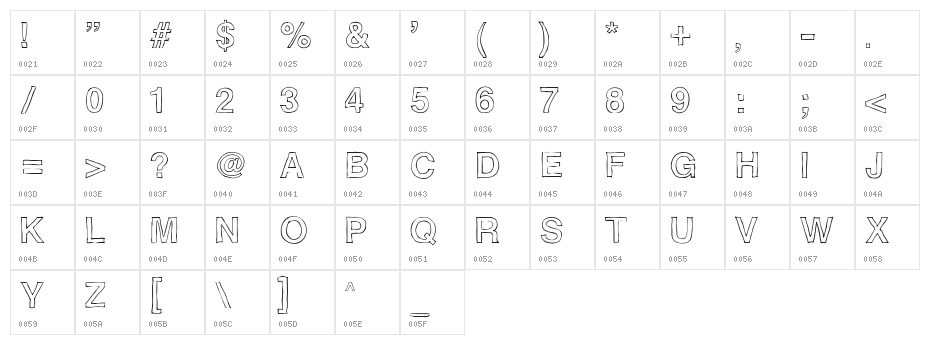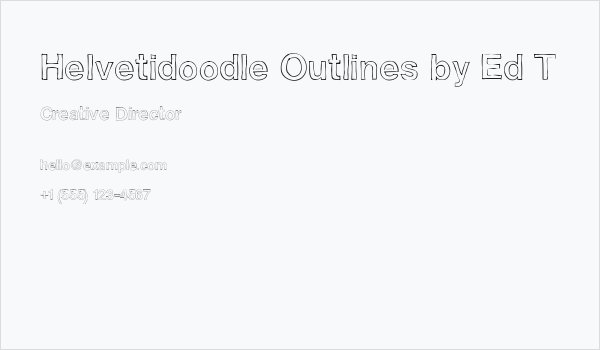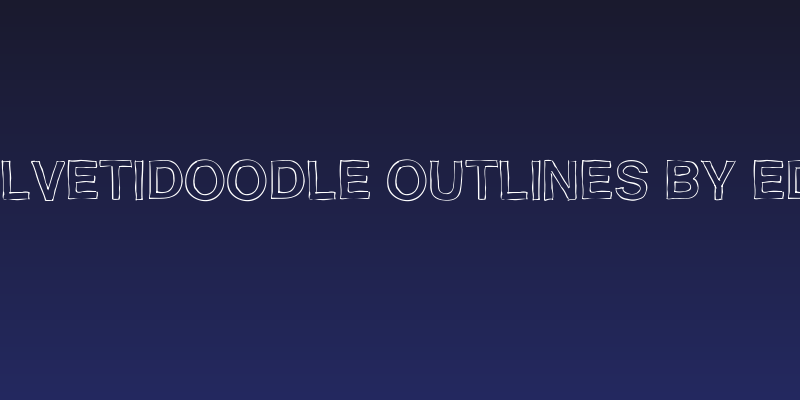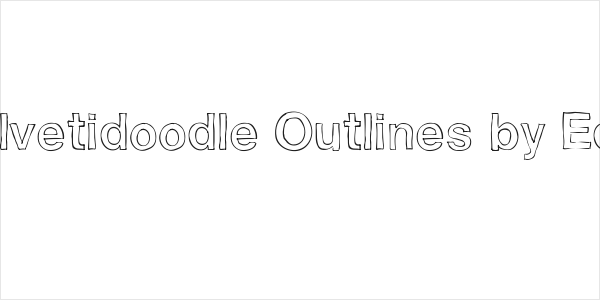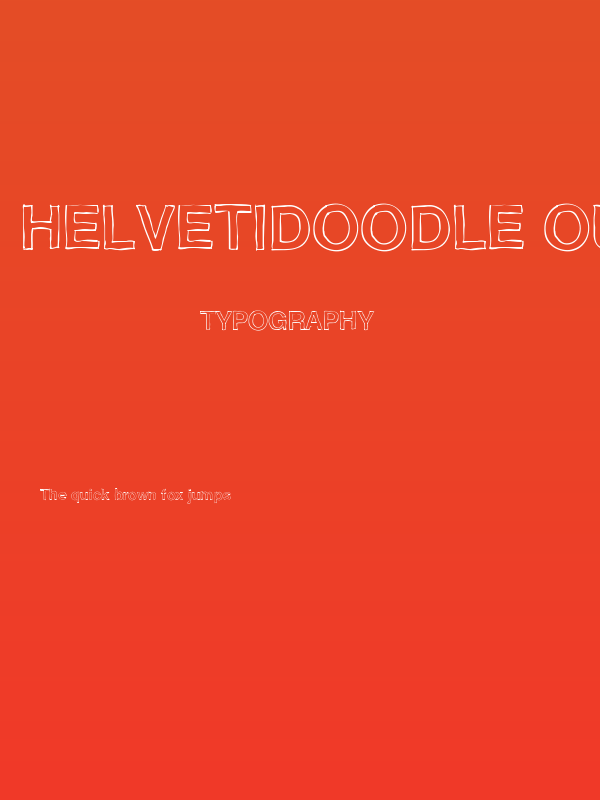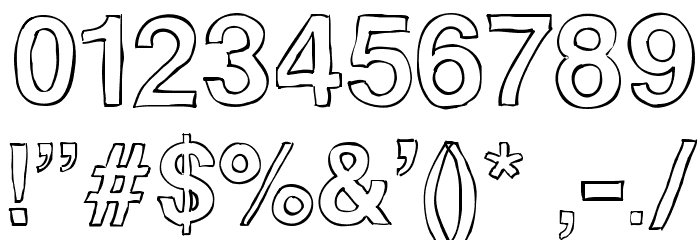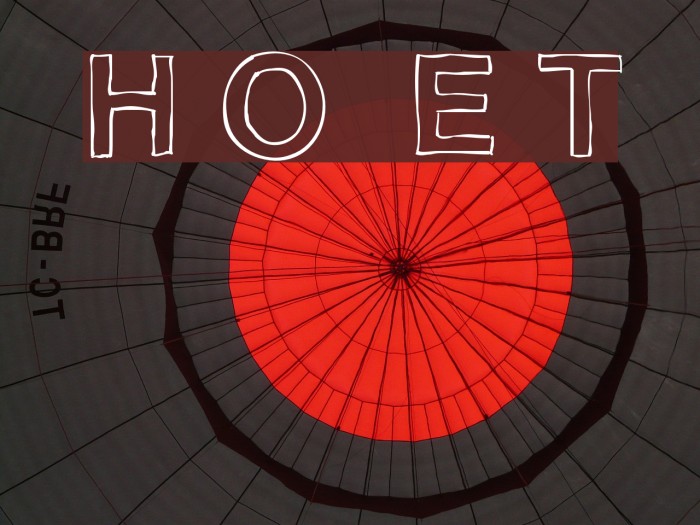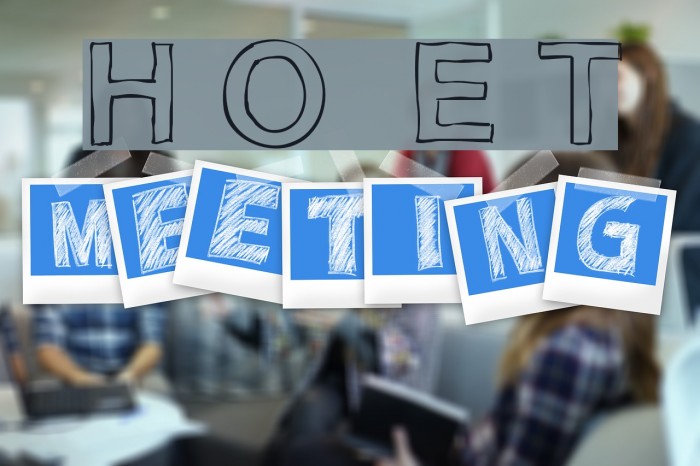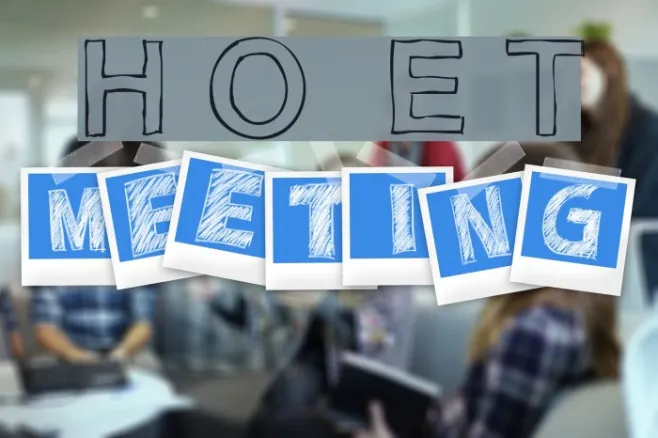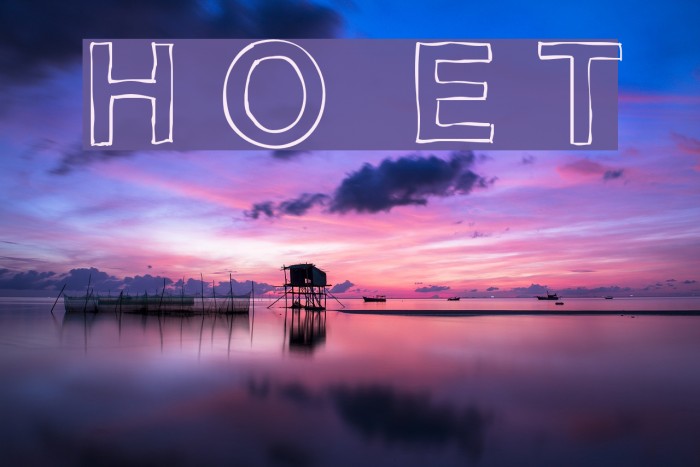
Helvetidoodle Outlines by Ed T Font
Helvetidoodle Outlines by Ed T Description
This font features a playful, hand-drawn outline style that adds a whimsical touch to any design. The characters are based on a classic sans-serif structure but are given a unique twist with their sketch-like appearance. Each letter and number is outlined with a slightly irregular line, giving the font a casual and artistic feel. The uppercase and lowercase letters maintain a consistent height and width, ensuring readability while still providing a creative flair. The numerals and special characters follow the same design principles, making the font versatile for various uses. Its informal style makes it perfect for projects that require a fun and approachable look.
| Proposed Projects | Ideal for children's books, playful branding, casual invitations, and creative posters. |